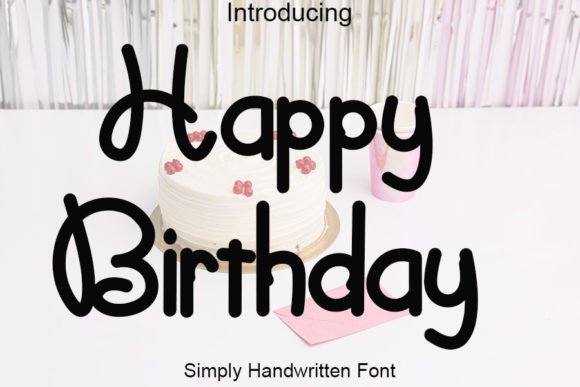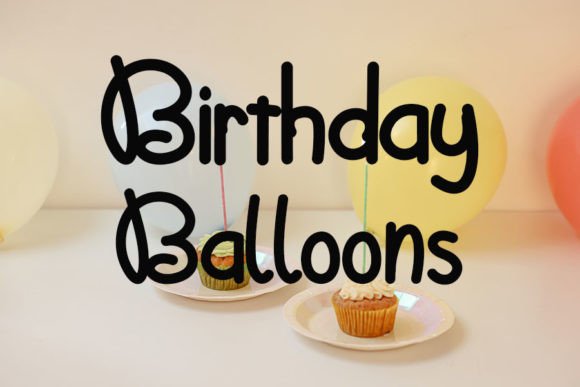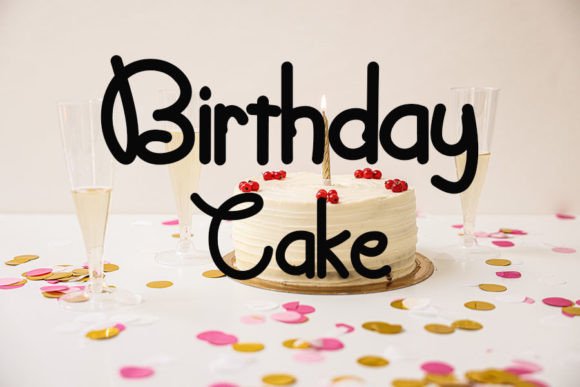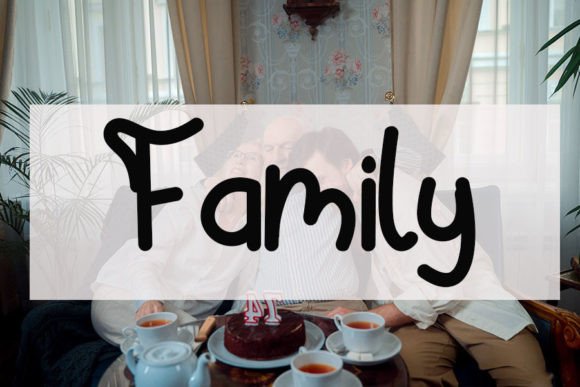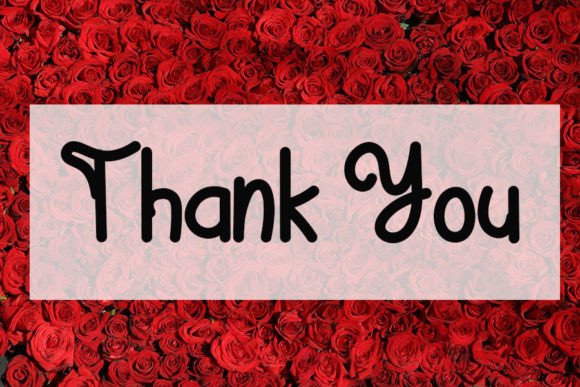
About Happy Birthday Font
“Happy Birthday” is a delightful handwritten font that exudes a friendly and inviting charm, making it the perfect choice for a myriad of creative projects. With its distinct and timeless style, this font offers a plethora of possibilities for design enthusiasts. Whether you’re crafting greeting cards, invitations, posters, or any other artistic endeavor, “Happy Birthday” is your go-to font for adding that extra touch of elegance.
The handwritten nature of this font infuses a sense of warmth and authenticity into your designs. Its elegant strokes and carefully crafted curves create a visual appeal that resonates with both casual and formal contexts. The fluidity of “Happy Birthday” allows for easy readability while maintaining an air of sophistication.
When it comes to birthday celebrations, the “Happy Birthday” font is particularly apt. Its friendly yet refined aesthetic can transform a simple birthday card into a work of art. The whimsical touch it adds to invitations sets the tone for a joyous celebration, making the recipient feel special from the moment they receive it.
Beyond birthdays, this font is versatile enough to adapt to various design needs. It can elevate a wedding invitation, infusing it with a romantic and timeless essence. For businesses seeking a logo or branding that conveys approachability and professionalism simultaneously, “Happy Birthday” offers a unique solution.
One of the font’s most captivating features is its timelessness. Trends come and go, but “Happy Birthday” endures. Its enduring appeal ensures that your designs will remain relevant and appealing for years to come.
In conclusion, “Happy Birthday” is a handwritten font that embodies charm, elegance, and versatility. It adds a touch of personality to your projects while maintaining a timeless quality that makes it suitable for a wide range of applications. Whether you’re celebrating birthdays, weddings, or creating branding materials, this font is sure to become your trusted companion in the world of design. So, let your creativity soar with “Happy Birthday” and watch your designs come to life with its distinct and enduring style.